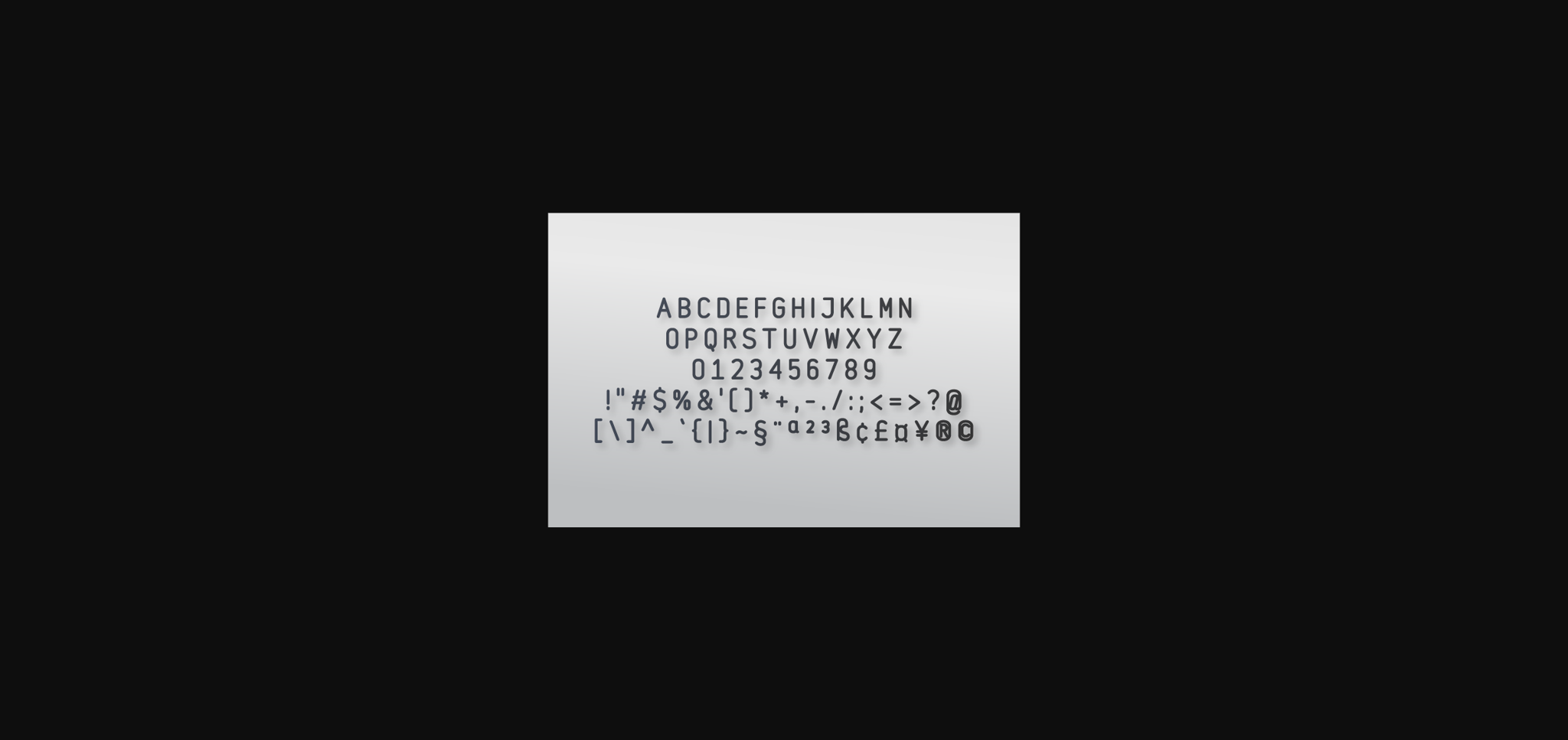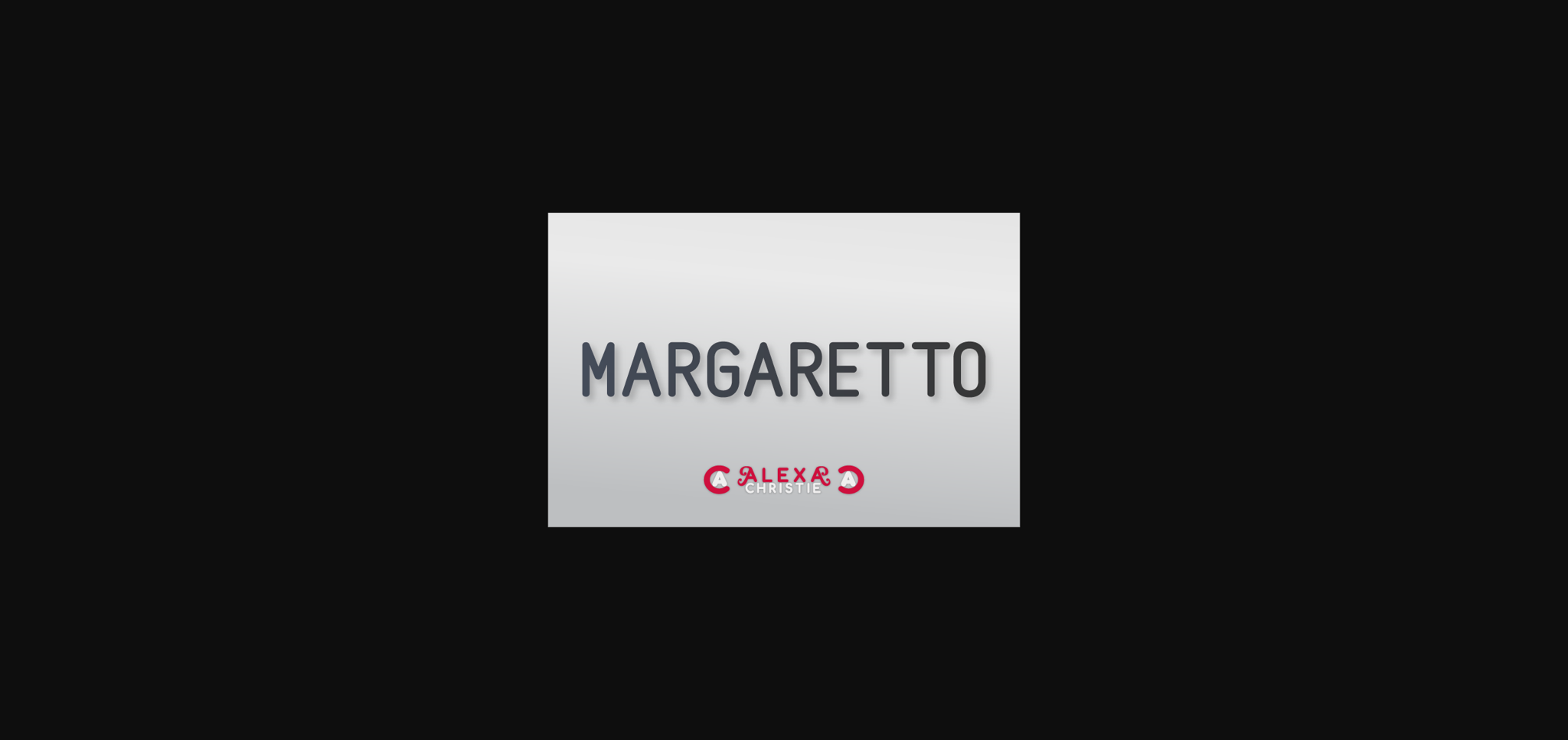
Margaretto is a simple and cute sans serif font with an undeniably clean feel. With its neat and beautiful arrangement of letters, this typeface will look outstanding in both formal and non-formal designs.